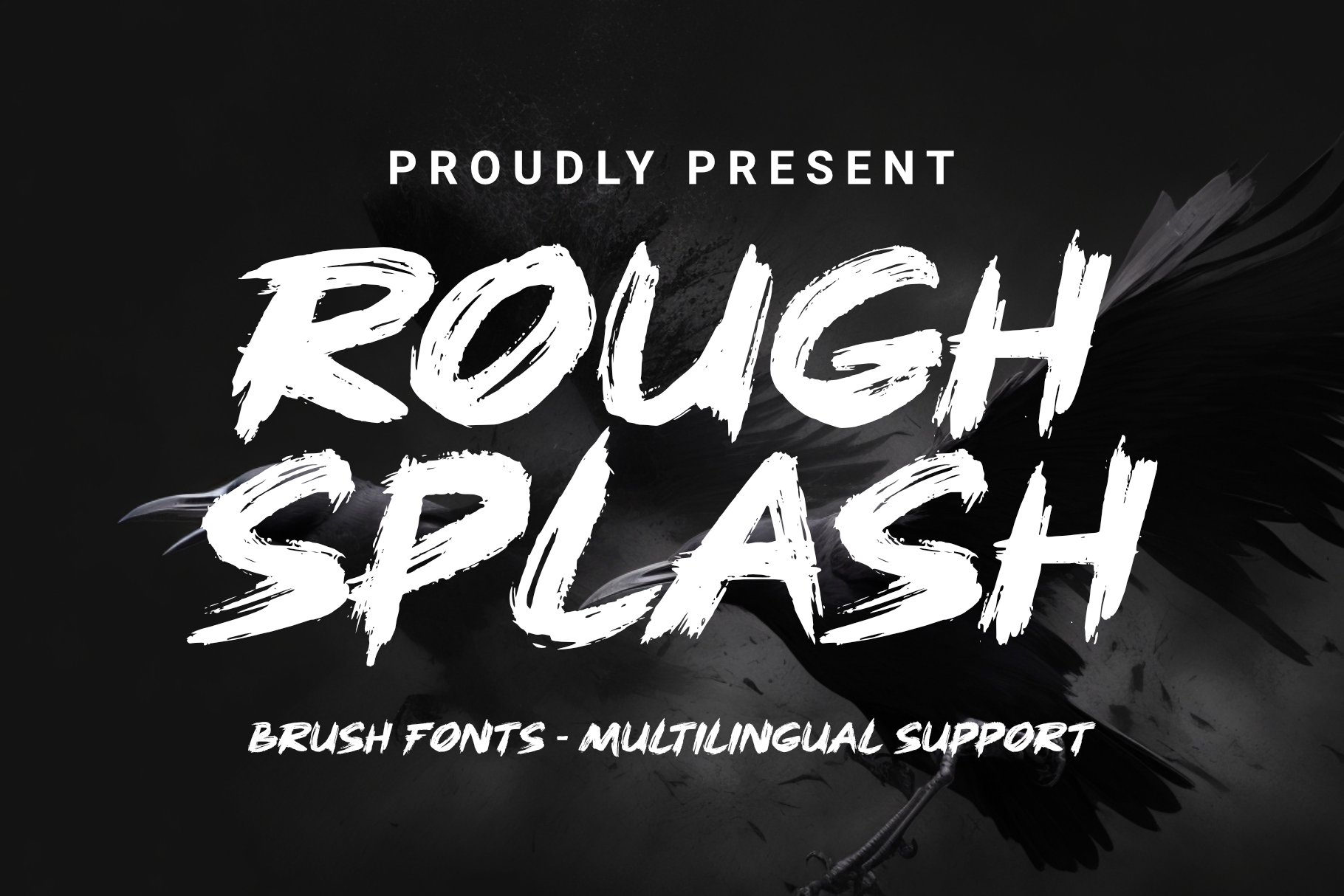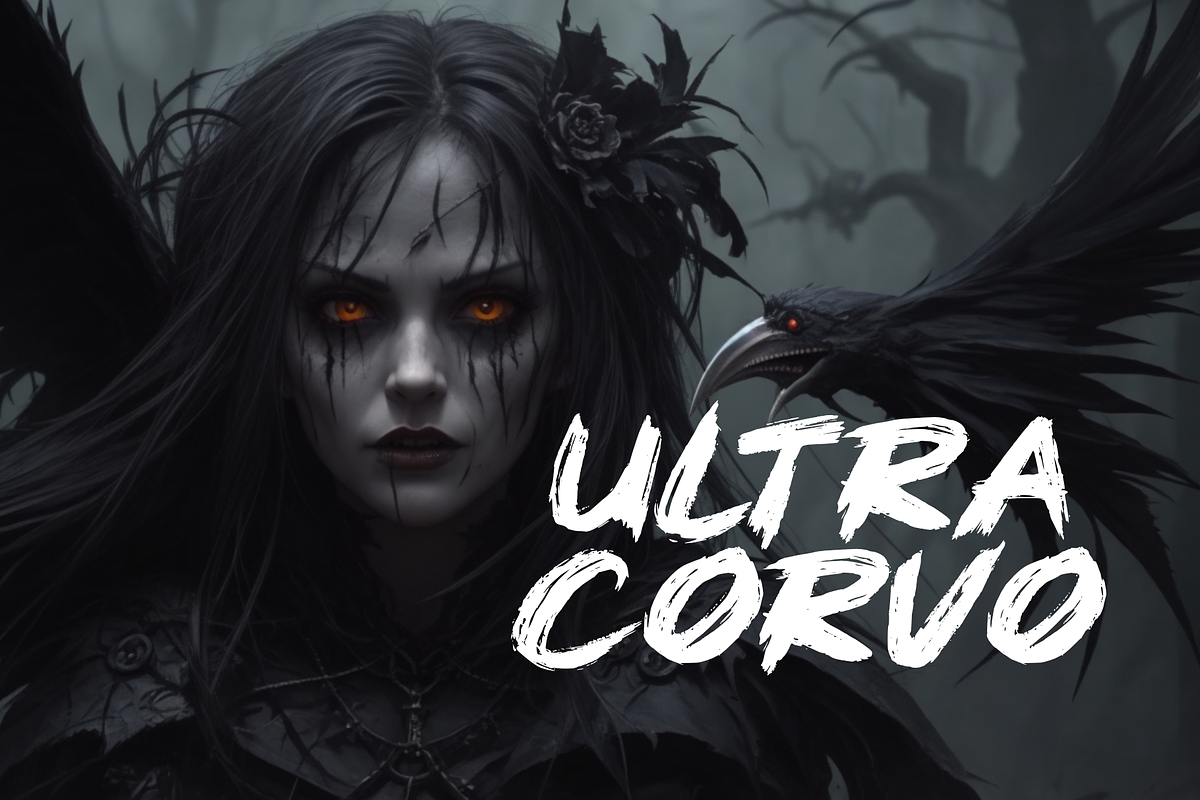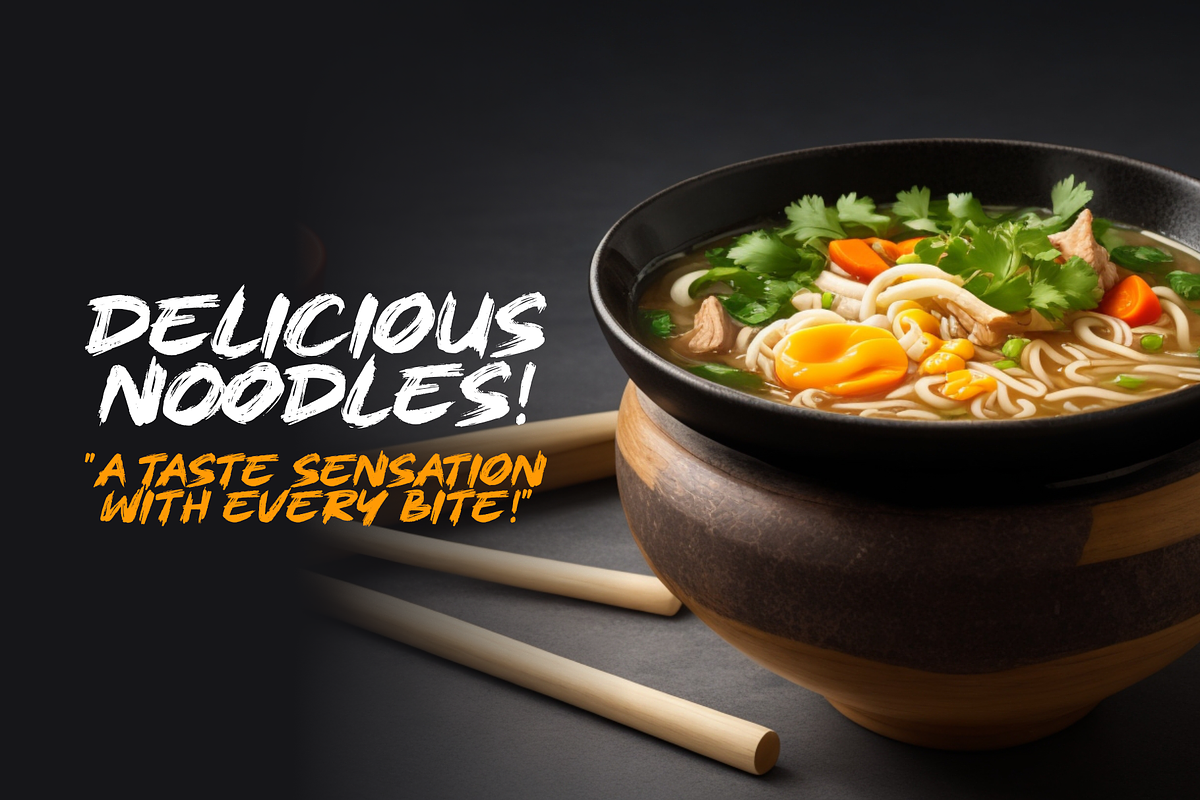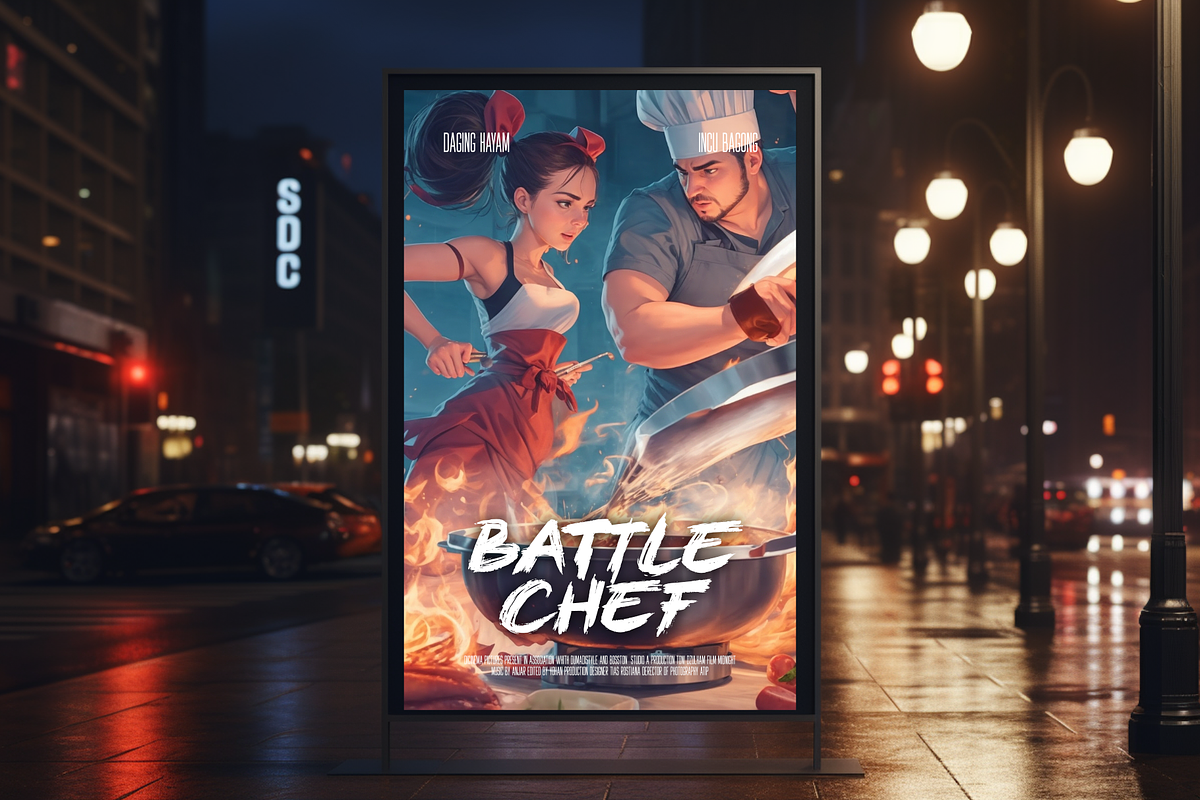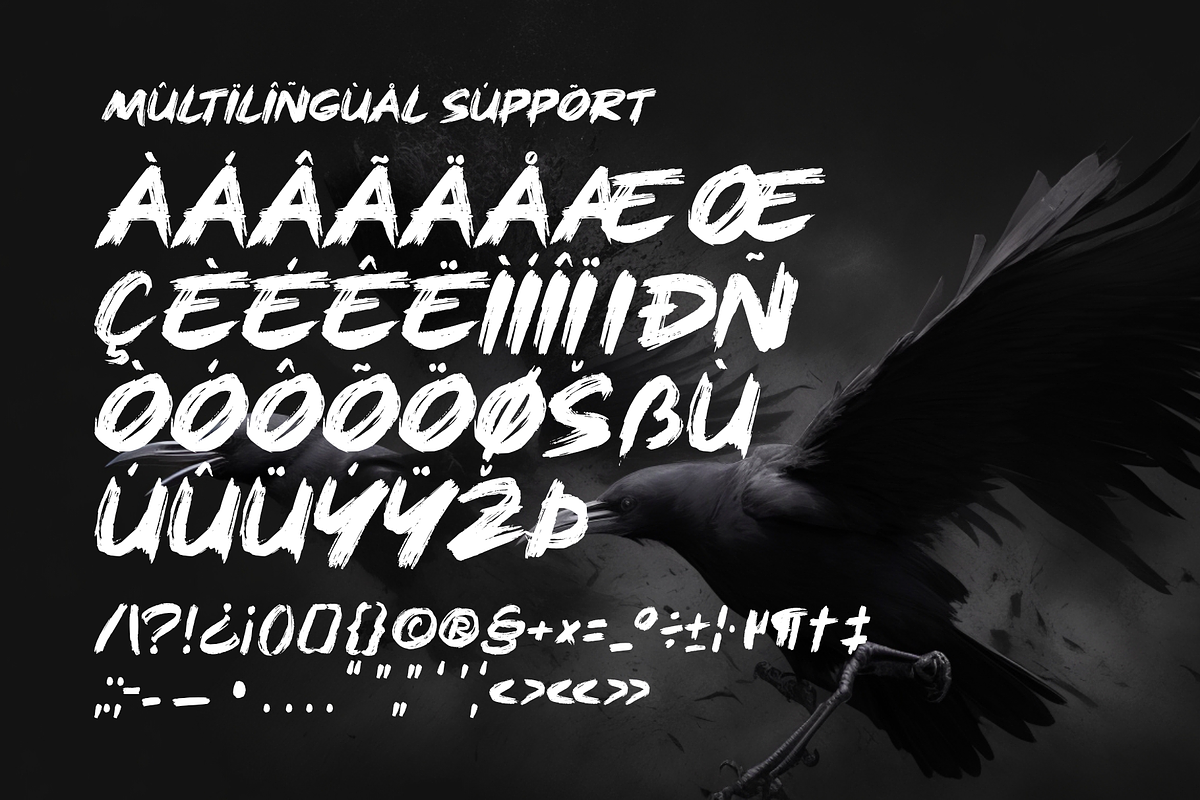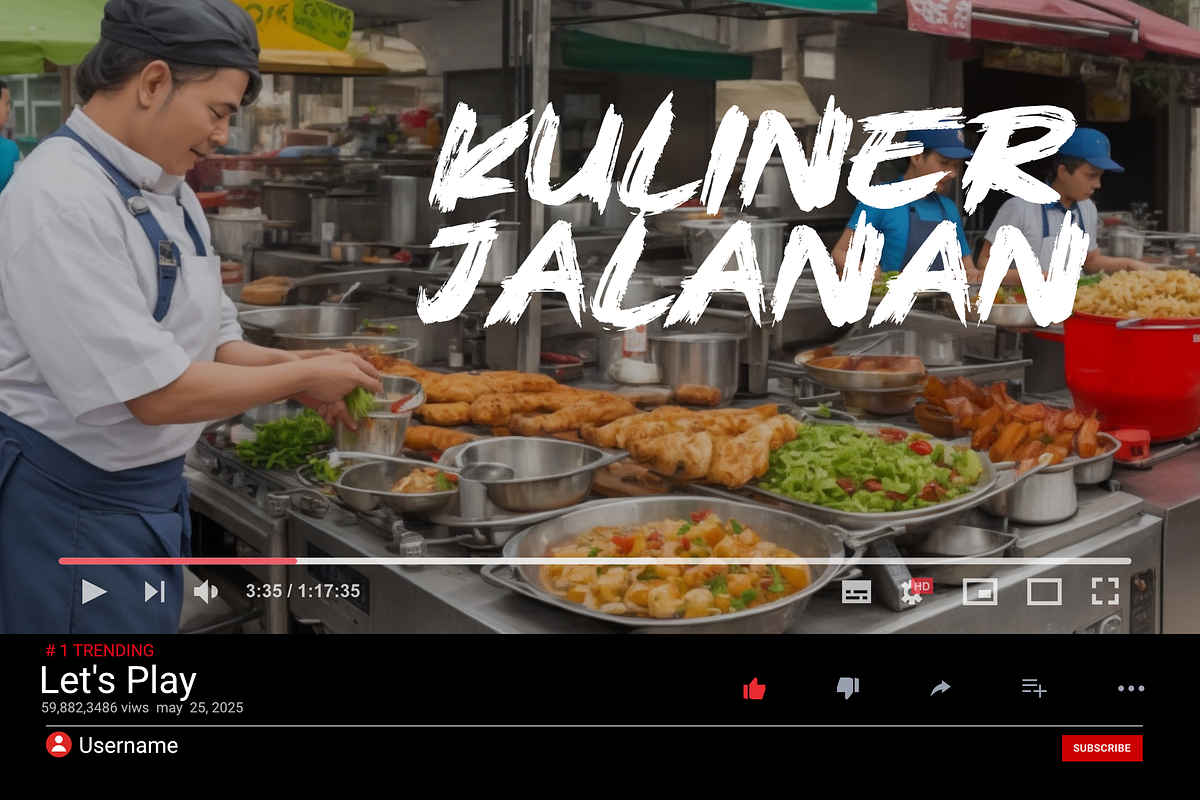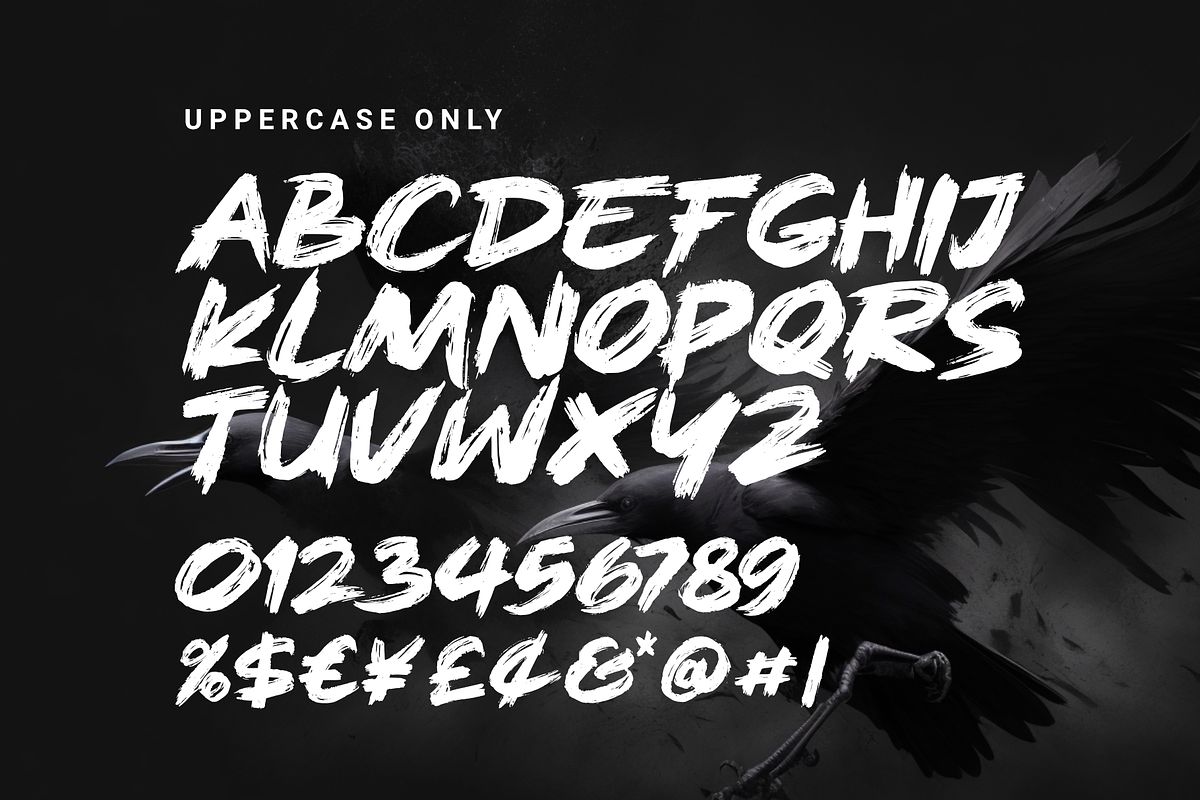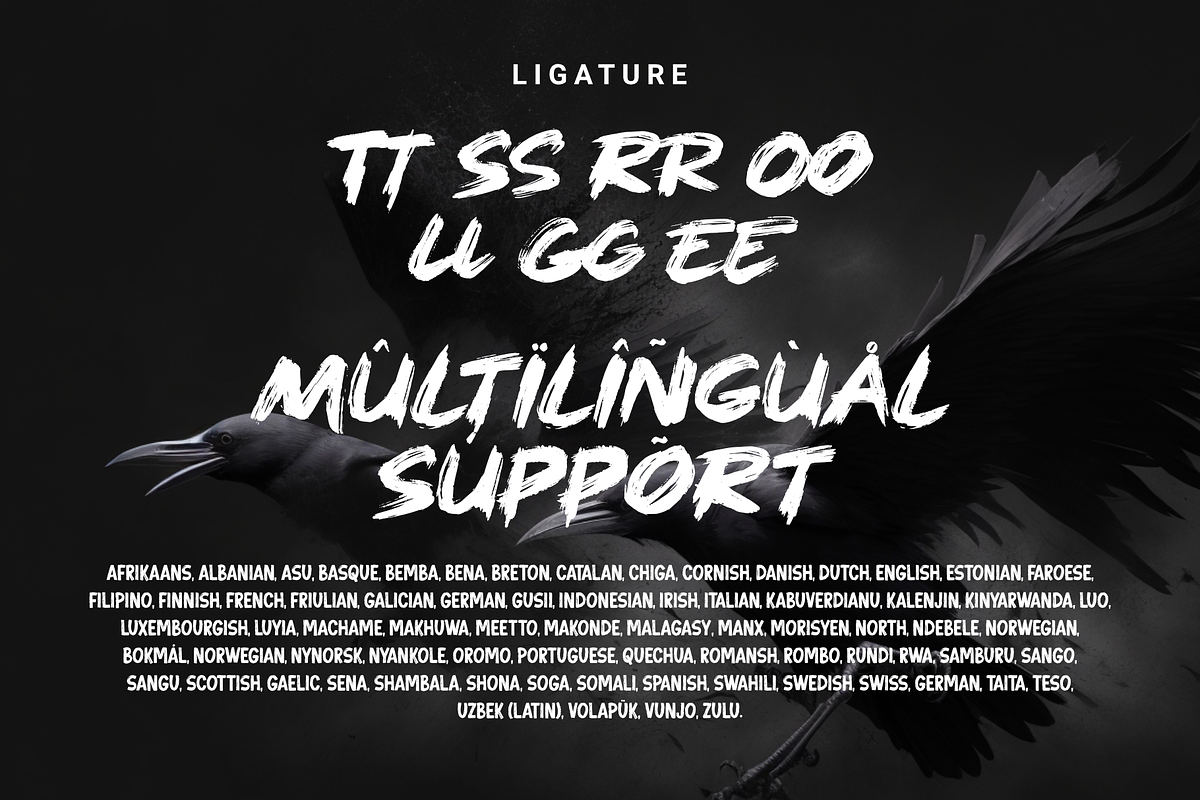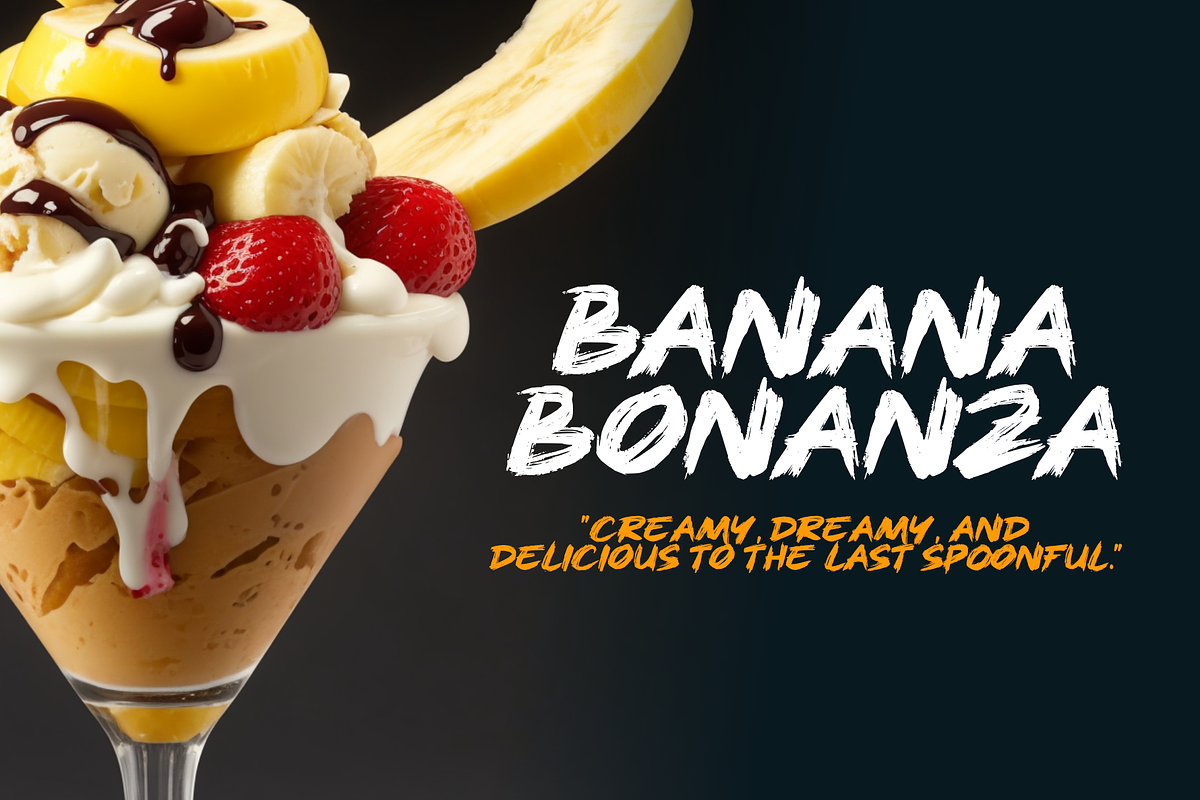
Rough Splash - Brush Font
Rough Splash provides a rough and energetic brush font for advertising branding design. With strong and expressive characters, this font creates a unique and striking appearance, perfect for capturing the attention of the target audience. The rough and spontaneous brush style on each letter creates a splash effect that brings a sense of courage and creative spirit. This font is suitable for representing brands that want to appear bold, modern, and innovative.
- Ligaturee
- Multilingual Accent
This Font Support Languages : Afrikaans, Albanian, Asu, Basque, Bemba, Bena, Breton, Catalan, Chiga, Cornish, Danish, Dutch, English, Estonian, Faroese, Filipino, Finnish, French, Friulian, Galician, German, Gusii, Indonesian, Irish, Italian, Kabuverdianu, Kalenjin, Kinyarwanda, Luo, Luxembourgish, Luyia, Machame, Makhuwa, Meetto, Makonde, Malagasy, Manx, Morisyen, North, Ndebele, Norwegian, Bokmål, Norwegian, Nynorsk, Nyankole, Oromo, Portuguese, Quechua, Romansh, Rombo, Rundi, Rwa, Samburu, Sango, Sangu, Scottish, Gaelic, Sena, Shambala, Shona, Soga, Somali, Spanish, Swahili, Swedish, Swiss, German, Taita, Teso, Uzbek (Latin), Volapük, Vunjo, Zulu.